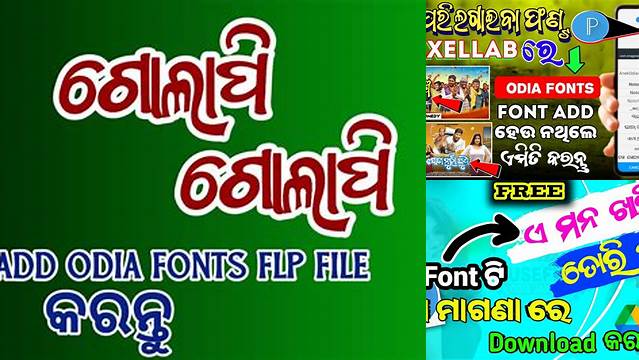
Best Odia Fonts For PixelLab: Design Like A Pro!
Hey guys, are you looking to add some authentic Odia flair to your PixelLab designs? You're in the right place! Finding the perfect odia fonts for PixelLab can be a game-changer. It's all about making your text pop, whether you're crafting social media posts, creating stunning graphics, or designing eye-catching logos. Let's dive into the world of Odia fonts and how you can use them to level up your PixelLab game. We will explore the best options, where to find them, and how to install them, so you can start creating awesome visuals right away. Get ready to transform your PixelLab projects with the beauty of the Odia script!
H2: Why Choose Odia Fonts for Your PixelLab Designs?
So, why bother with odia fonts for PixelLab? Well, think about it: if you're targeting an audience that speaks or understands Odia, using the correct script is super important. It's about more than just aesthetics; it’s about connecting with your audience on a deeper level. Using Odia fonts shows that you respect and understand their language and culture. It's like a little nod of recognition that can go a long way in building trust and engagement. Plus, Odia fonts add a unique visual appeal that can make your designs stand out. They have a distinct look that can instantly grab attention, unlike generic fonts. You might be creating a poster, a meme, or even a logo; the right font can make all the difference. With the right font, your designs can instantly become more authentic, relevant, and engaging. It is very important to use odia fonts for PixelLab to convey a specific message, such as a festival greeting or a local business promotion. By using a familiar script, you create a sense of belonging and encourage your audience to connect more with your content. In a world of digital content, standing out is key, and Odia fonts can help you do just that. Whether it's for a personal project or professional work, mastering the use of Odia fonts in PixelLab opens up exciting creative possibilities.
H2: Finding the Best Odia Fonts: A Comprehensive Guide
Finding the best odia fonts for PixelLab can seem like a quest, but it doesn't have to be. There are plenty of resources online where you can find a variety of fonts to suit your needs. Some websites specialize in offering free fonts, while others provide premium options with more features and styles. When you are looking for odia fonts for PixelLab, start with reliable font libraries that are known for quality and variety. Websites like Google Fonts (though not all Odia fonts are available here), Font Squirrel, and DaFont are great places to start. These sites often have a wide selection of fonts, and you can filter your search to find Odia fonts specifically. Before downloading, always check the license of the font. Some fonts are free for personal use but require a license for commercial projects. This helps ensure you are using the font legally. Another good practice is to look for fonts that are well-designed and easy to read. Consider the context of your designs – is it for a small text display or a large headline? Choose fonts that suit the style of your project. You might need to experiment with different fonts to find what works best for you. Test the fonts in PixelLab to ensure they render correctly and don't cause any issues. The best fonts are those that look good and function flawlessly within your designs. Always be patient, it's not a race, it is about finding the perfect fonts that will make your designs look amazing.
H3: Criteria for Selecting High-Quality Odia Fonts
When choosing odia fonts for PixelLab, several criteria will guide you in selecting the best fonts. First, the font's readability is essential. A font should be easy to read, especially in various sizes and contexts. If you plan to use your fonts for headlines, choose fonts that are visually striking but still legible. Second, the font's design quality matters. Look for fonts that are well-crafted, with consistent letterforms and a balanced design. Poorly designed fonts can look unprofessional and detract from your designs. Third, make sure the font supports the characters you need. Some Odia fonts may only include a limited set of characters. Check that the font includes all the necessary glyphs to write correctly. Fourth, consider the font's license. Choose fonts that align with your needs. If you want to use the fonts for commercial projects, confirm the license is suitable. Last, test the font in PixelLab. Before you start a project, make sure the font renders correctly in PixelLab. Test it by typing a paragraph and adjusting the size and style. The best Odia font will balance readability, design quality, and compatibility.